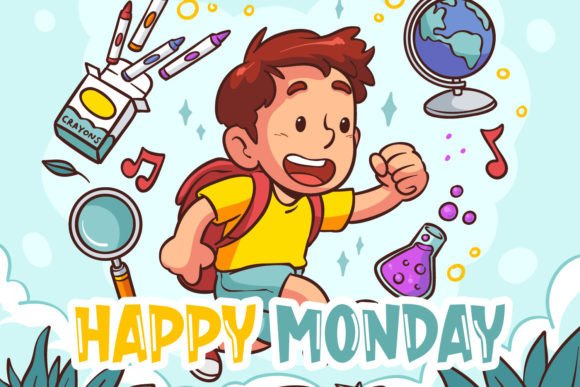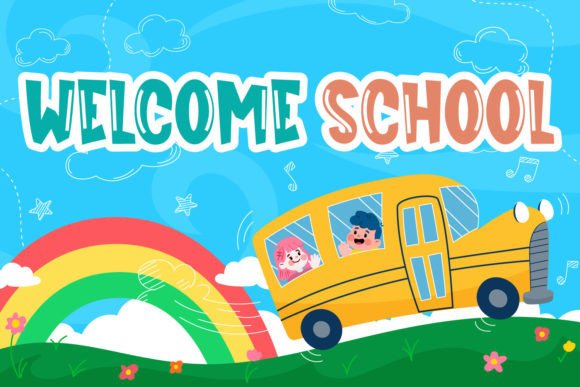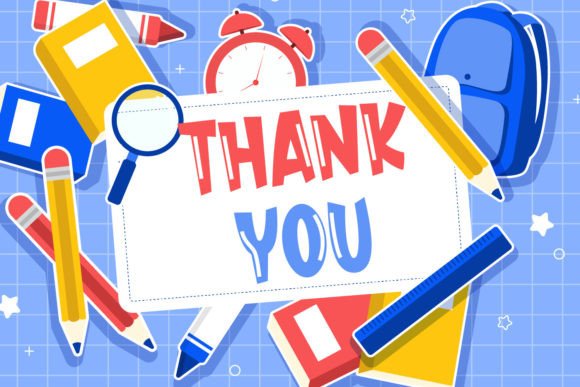
Back to School Font: Add a Playful Touch to Your Designs
As the new school year approaches, designers and crafters are on the lookout for fresh and exciting fonts to add a personal touch to their creations. If you’re looking for a font that embodies the spirit of learning and fun, look no further than the Back to School Font. This adorable display font is sure to capture the imagination of students and teachers alike, and in this article, we’ll explore what makes it so special.
What is Back to School Font?
Back to School Font is a cute and friendly display font that features charming characters that seem to dance along the baseline. Its playful and whimsical design makes it perfect for a variety of creative projects, from school-themed crafts to educational materials. With its unique and eye-catching style, this font is sure to make your designs stand out from the crowd.
Key Features of Back to School Font
- Playful and Whimsical Design: The Back to School Font boasts a charming and friendly design that’s sure to delight students and teachers alike.
- Dancing Characters: The font’s characters seem to dance along the baseline, adding a touch of movement and energy to your designs.
- Perfect for School-Themed Projects: Whether you’re creating materials for a school event or designing crafts for kids, this font is the perfect choice.
- Easy to Read: Despite its playful design, the Back to School Font is easy to read, making it perfect for use in educational materials.
How to Use Back to School Font
The Back to School Font is incredibly versatile and can be used in a variety of creative projects. Here are a few ideas to get you started:
- School-Themed Crafts: Use the font to create fun and colorful crafts for kids, such as greeting cards, posters, and banners.
- Educational Materials: Add a playful touch to your educational materials, such as worksheets, quizzes, and activity sheets.
- Event Promotions: Use the font to create eye-catching promotions for school events, such as back-to-school nights, parent-teacher conferences, and school fairs.
- Digital Designs: Incorporate the font into your digital designs, such as social media graphics, blog posts, and email newsletters.
Tips for Using Back to School Font
To get the most out of the Back to School Font, here are a few tips to keep in mind:
- Use it Sparingly: While the font is playful and fun, it’s best to use it sparingly to avoid overwhelming your designs.
- Pair it with Other Fonts: Experiment with pairing the Back to School Font with other fonts to create a unique and visually appealing design.
The Back to School Font is a charming and playful display font that’s perfect for designers and crafters looking to add a personal touch to their creations. With its unique and eye-catching design, this font is sure to make your designs stand out from the crowd. Whether you’re creating school-themed crafts, educational materials, or digital designs, the Back to School Font is the perfect choice. So why not give it a try and see how it can add a touch of fun and whimsy to your designs?